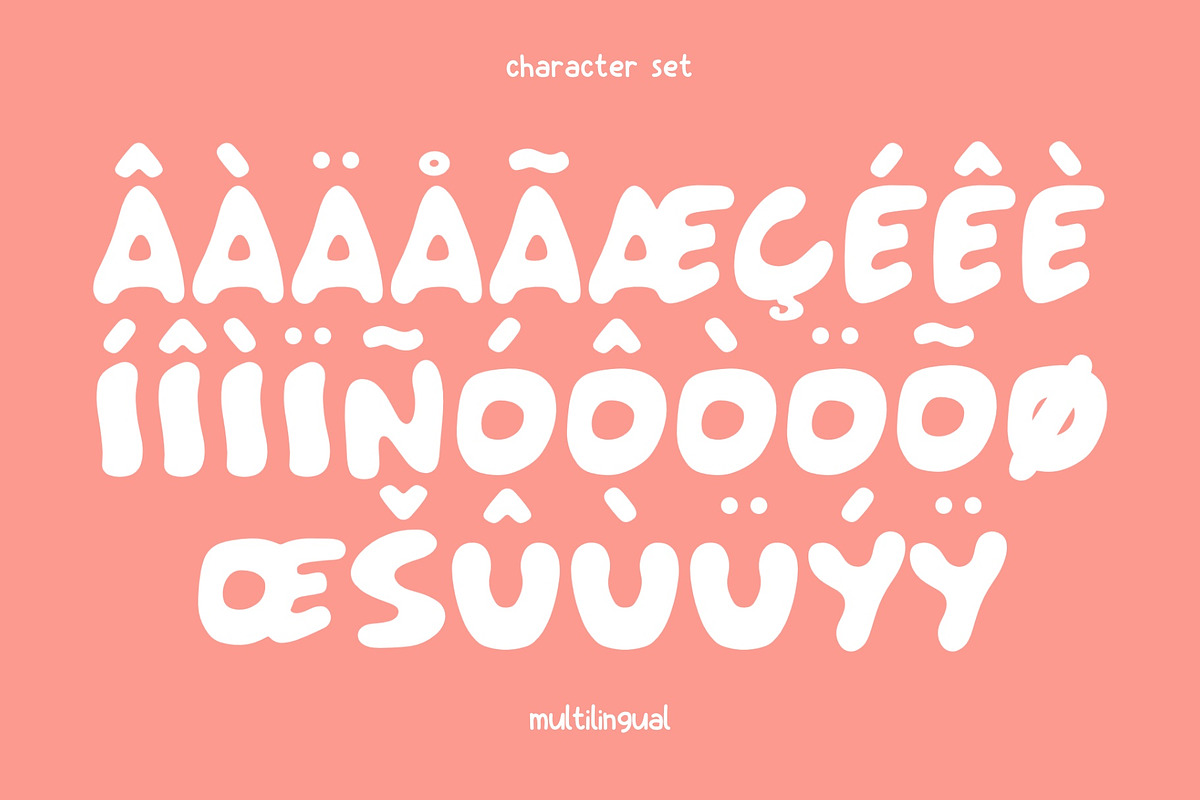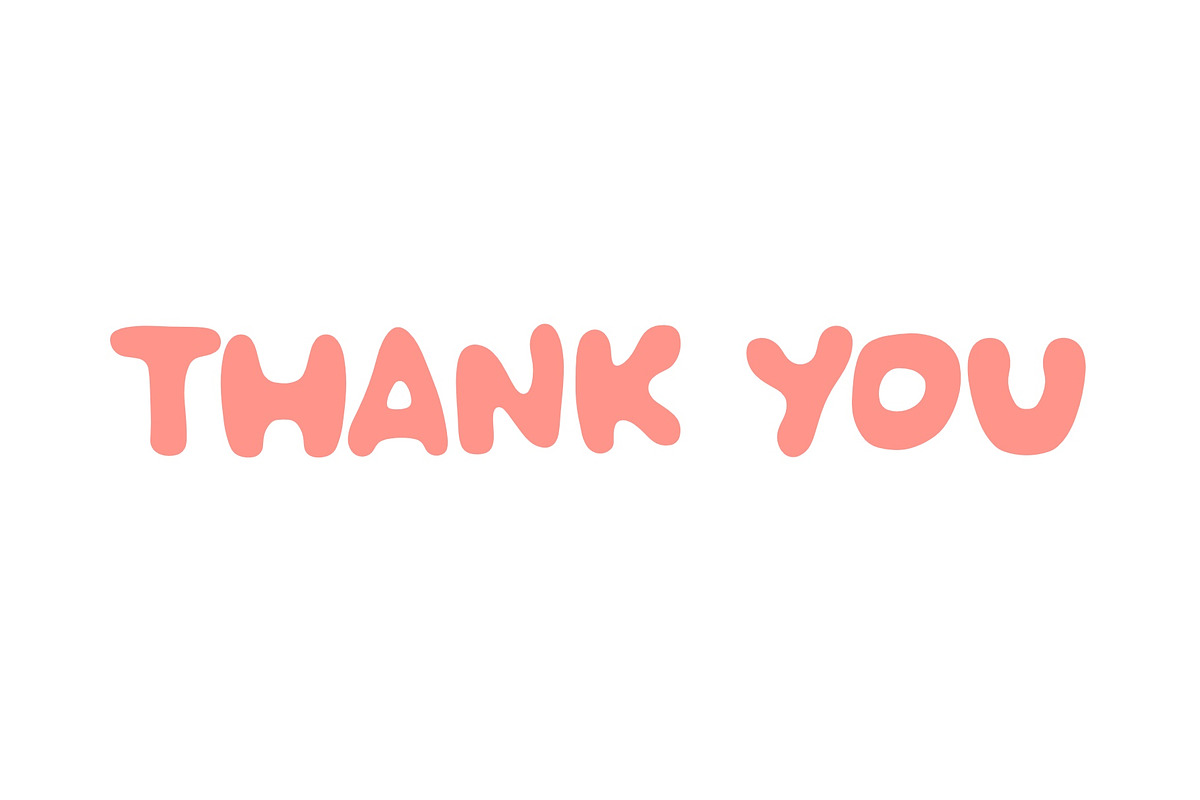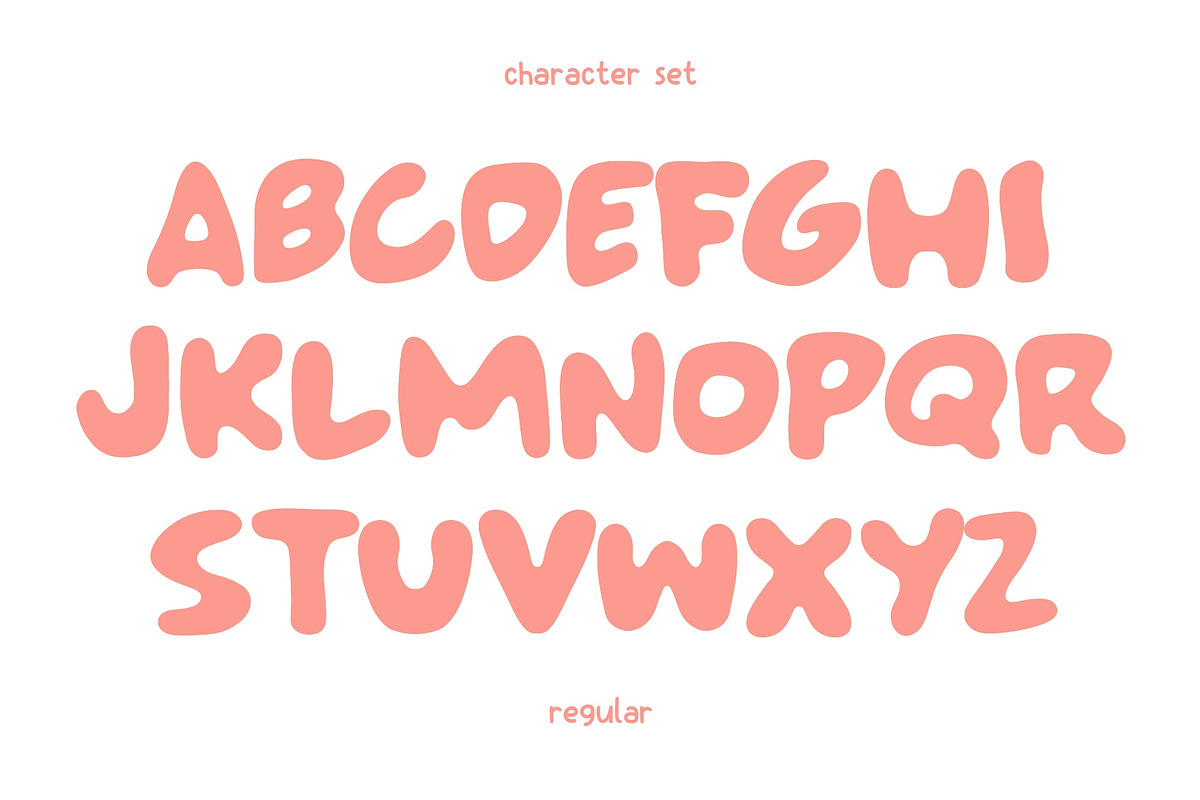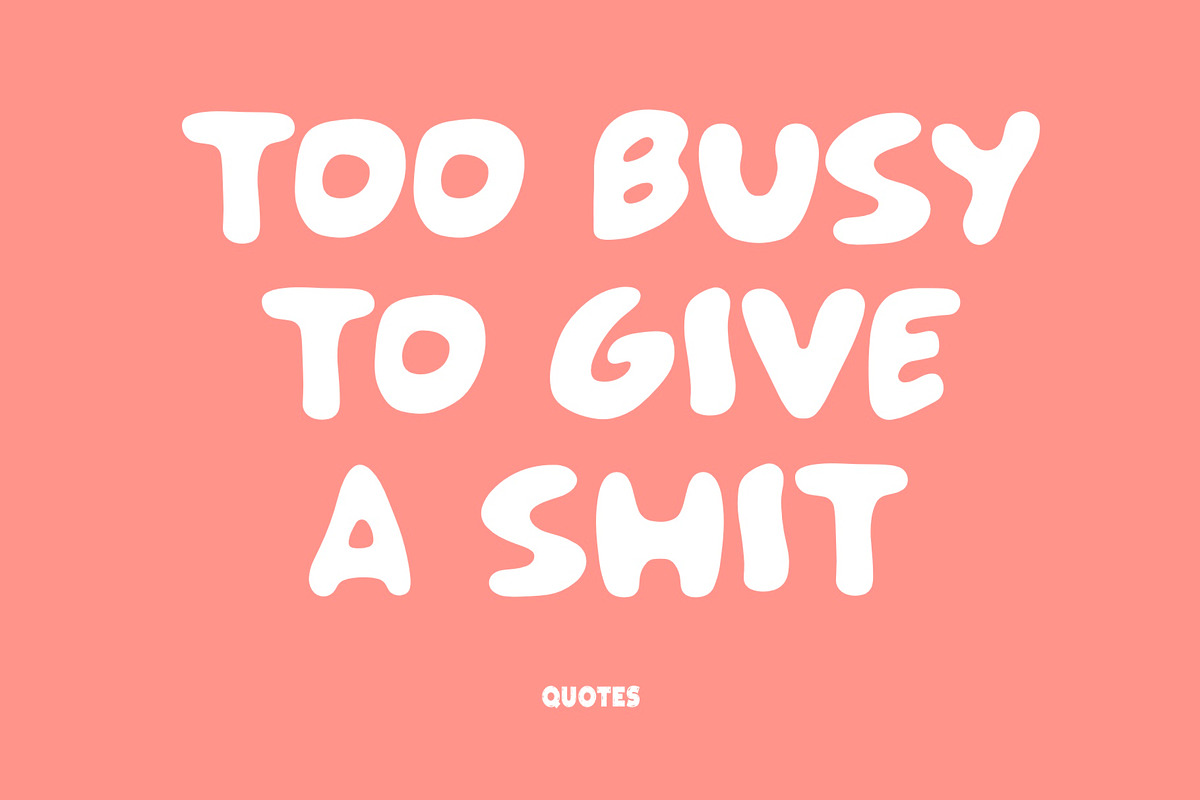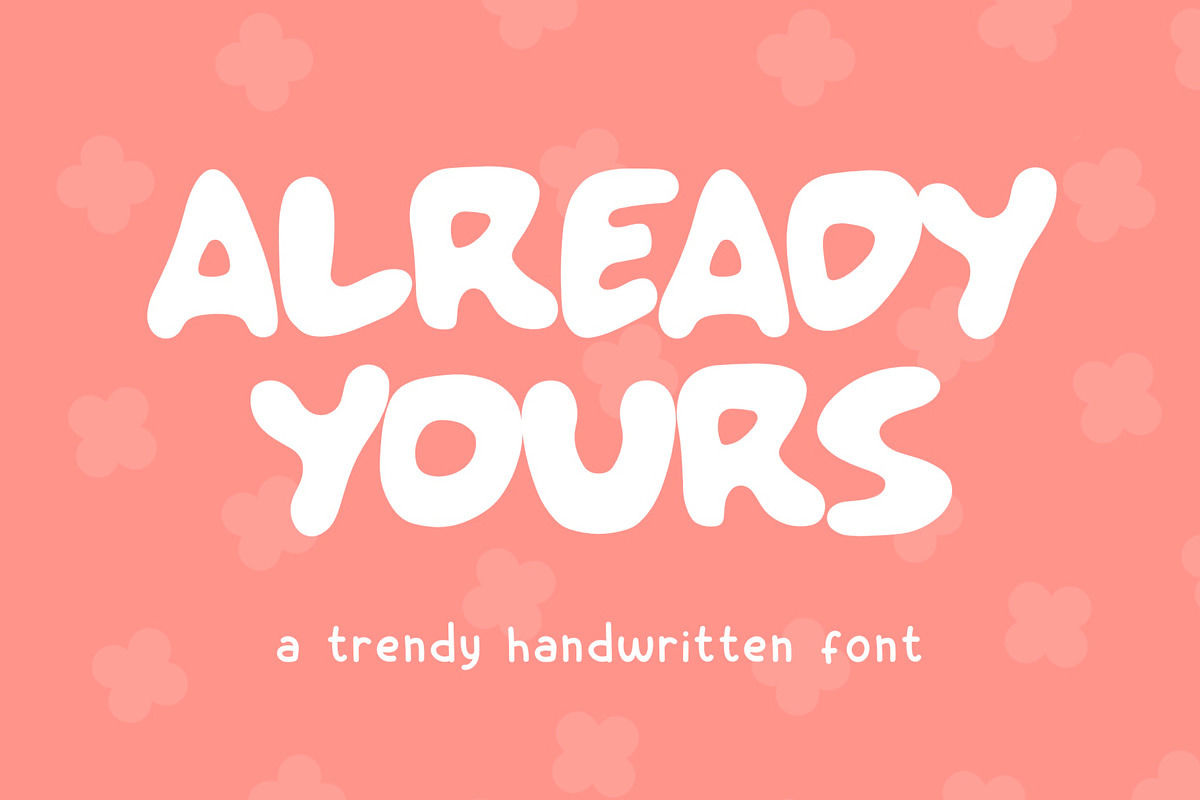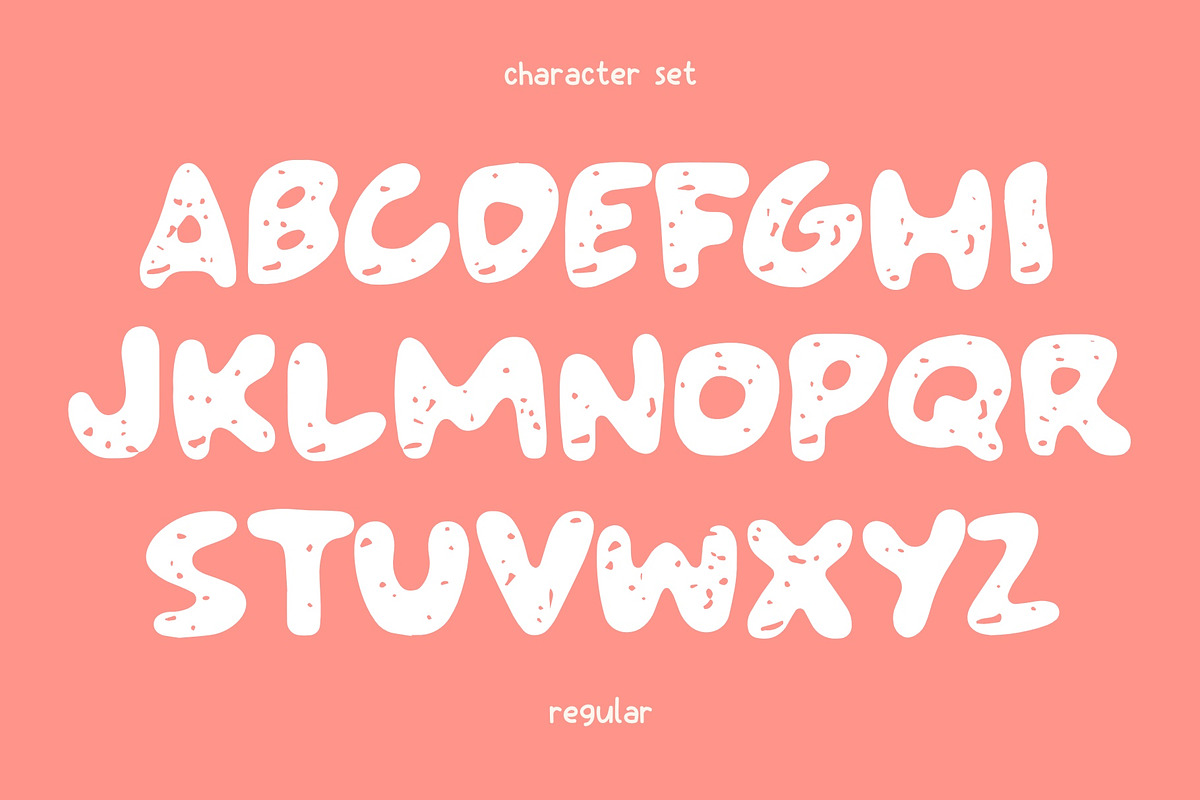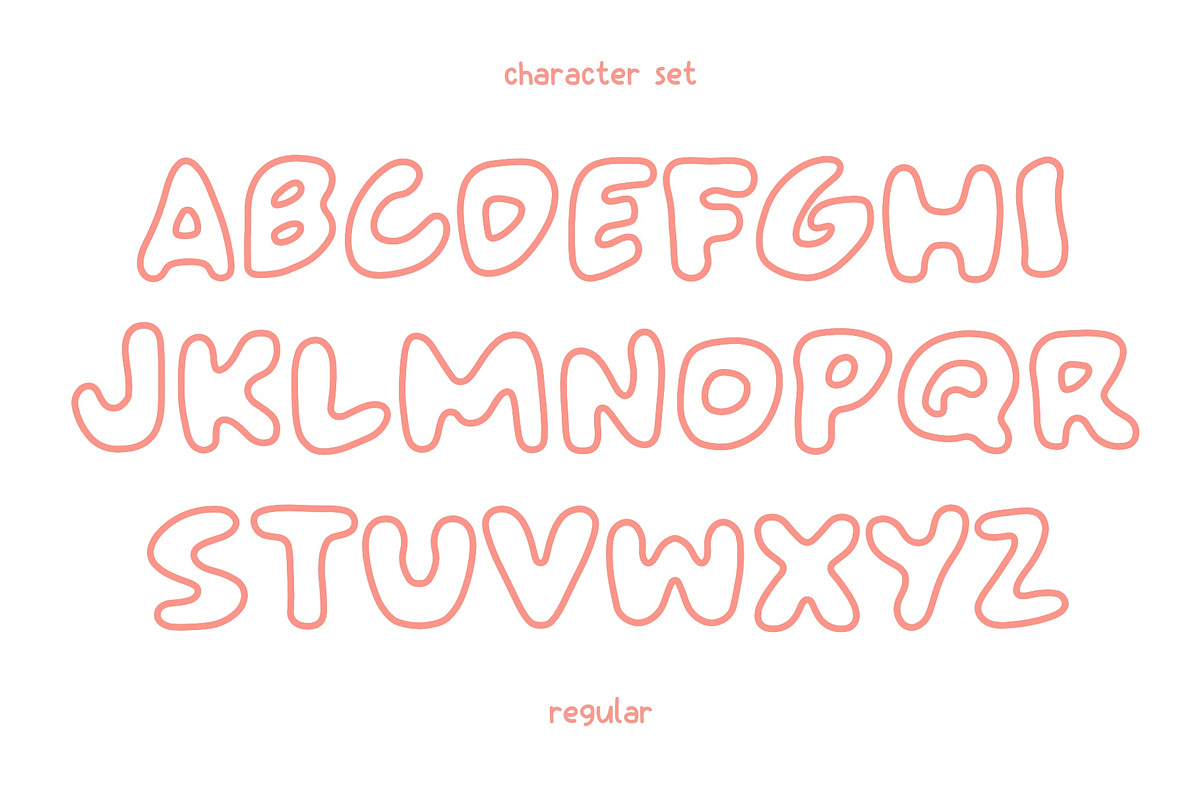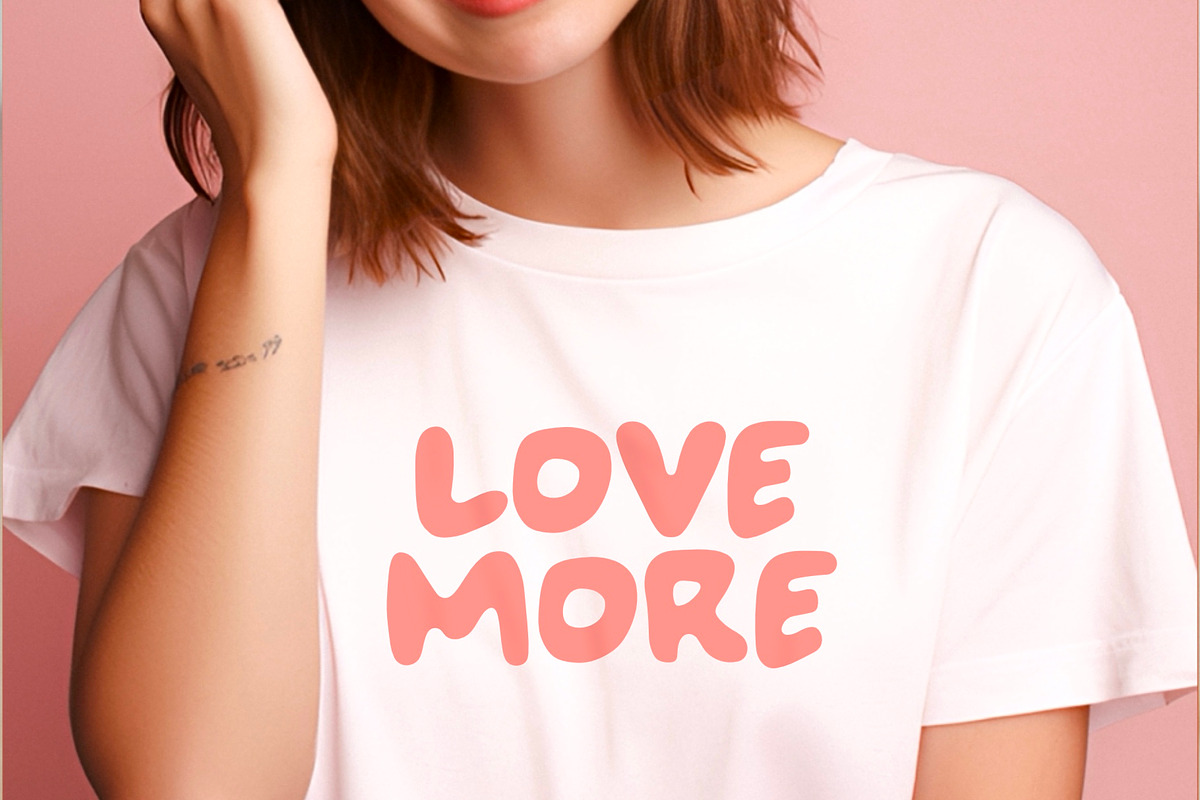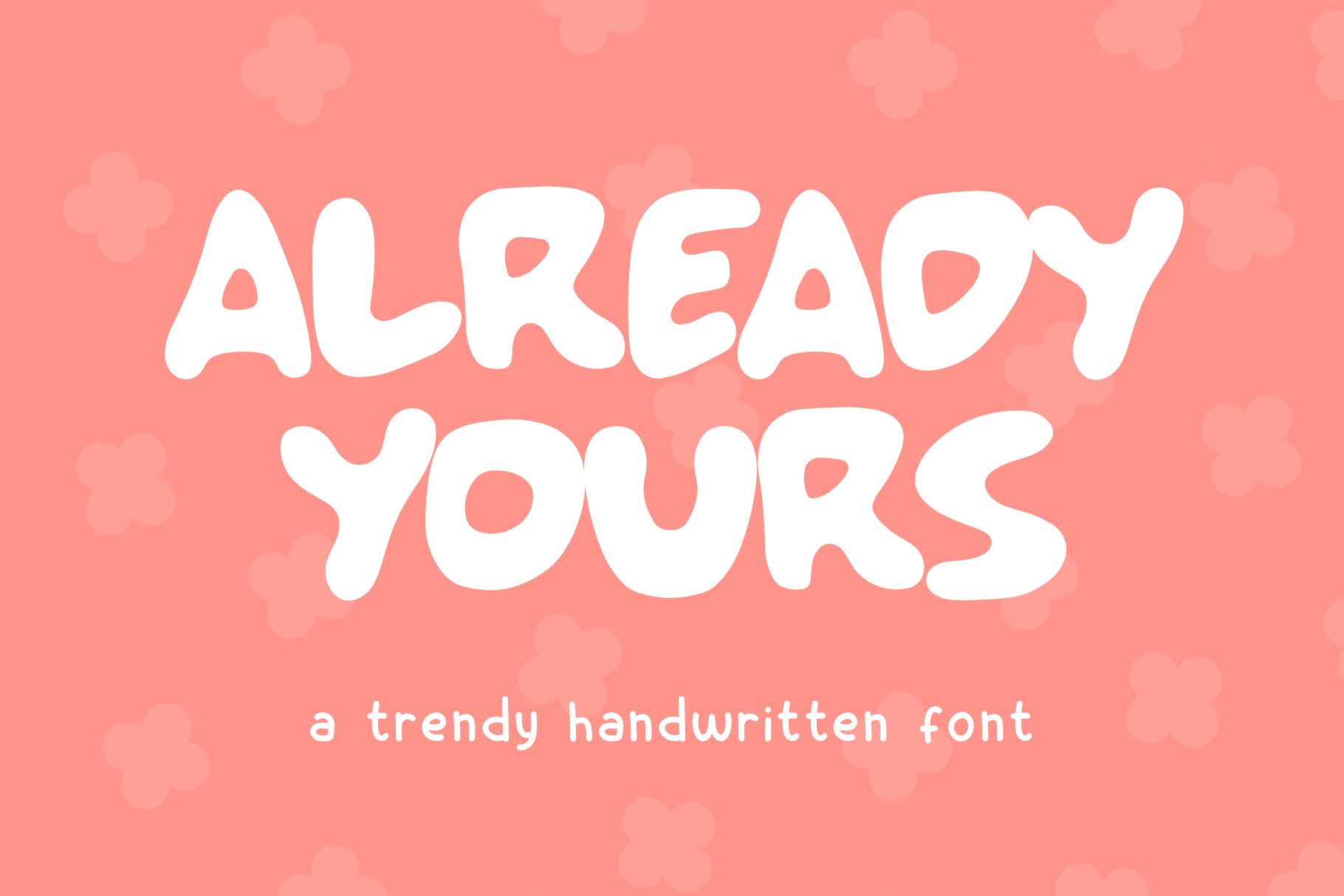
Already Yours Font - Sans Serif Font
Already Yours is a Sans Serif font that effortlessly blends sophistication with a playful, charismatic style. This typeface available in SVG format, compatible with advanced tools such as Cricut and Glowforge, and for use in Procreate. With its clean lines and contemporary design, this font exudes a sense of modernity while embracing a playful undertone.